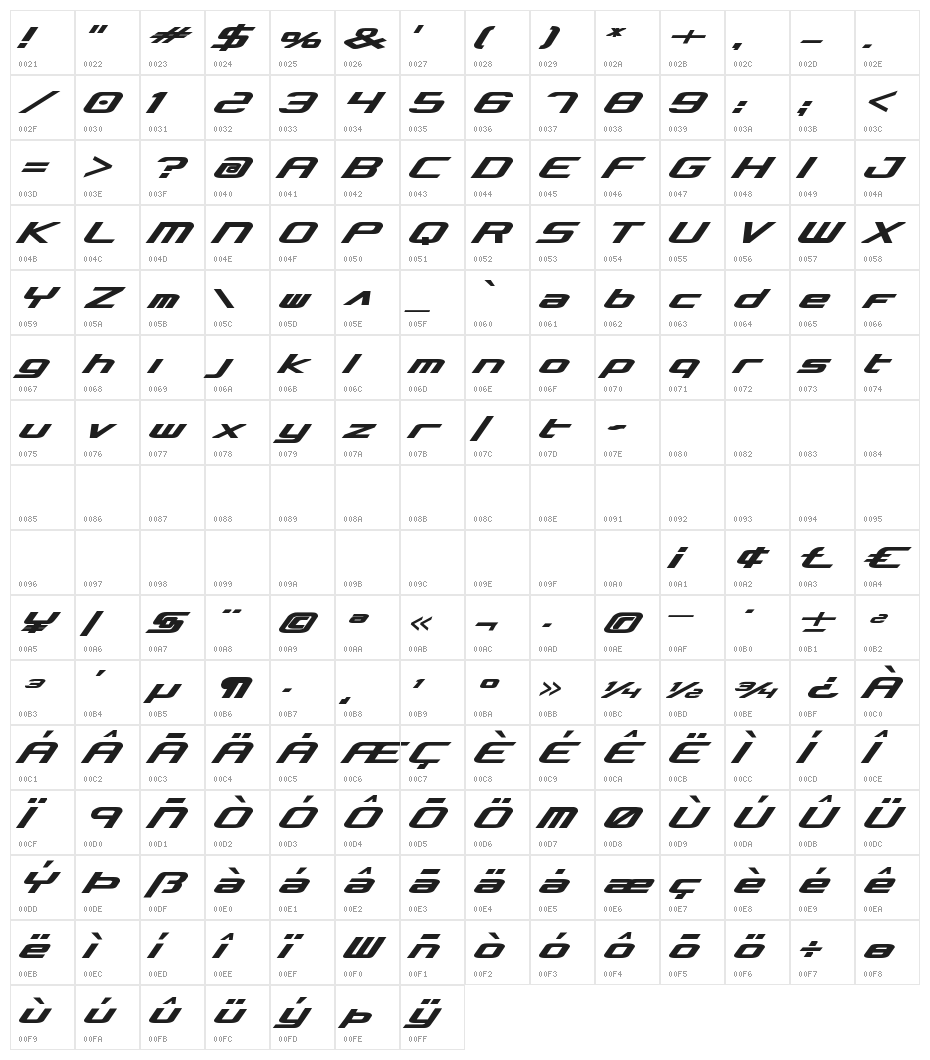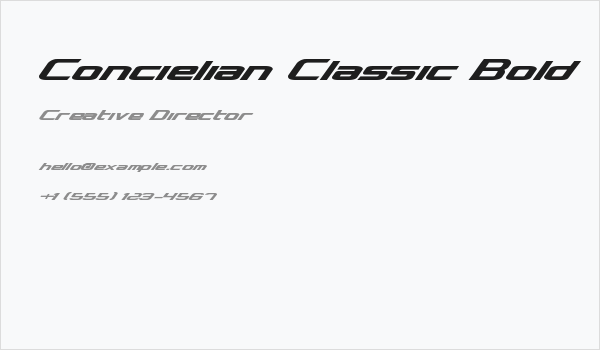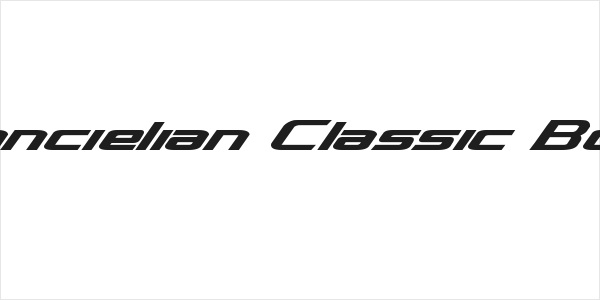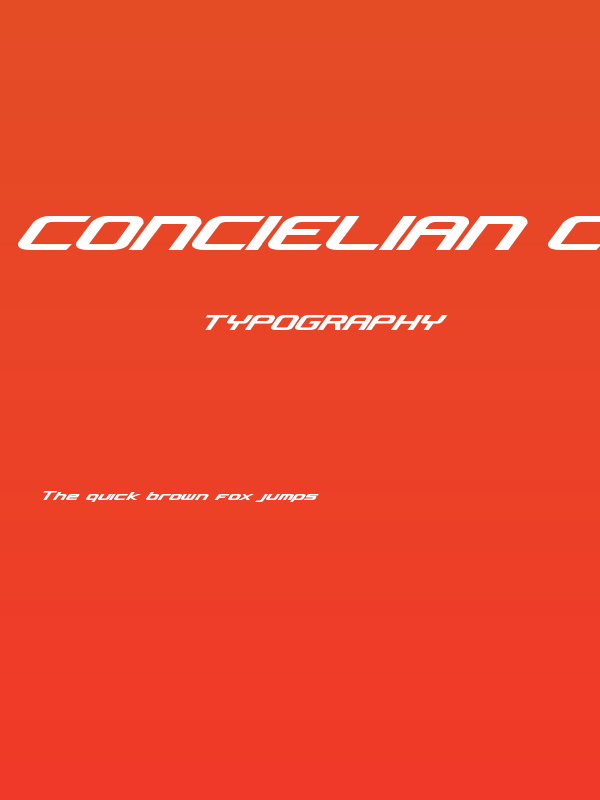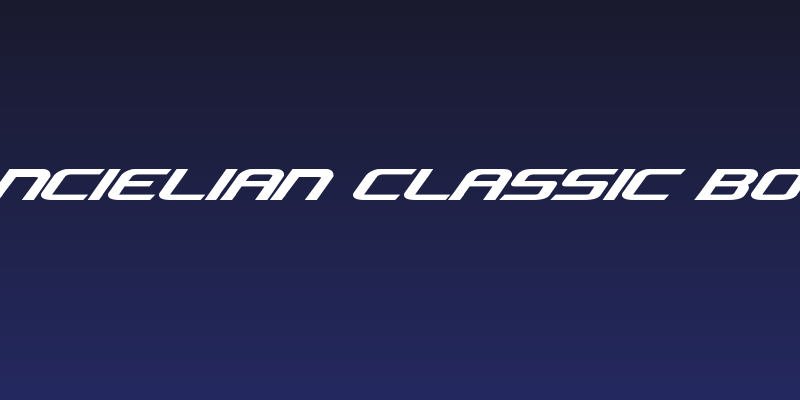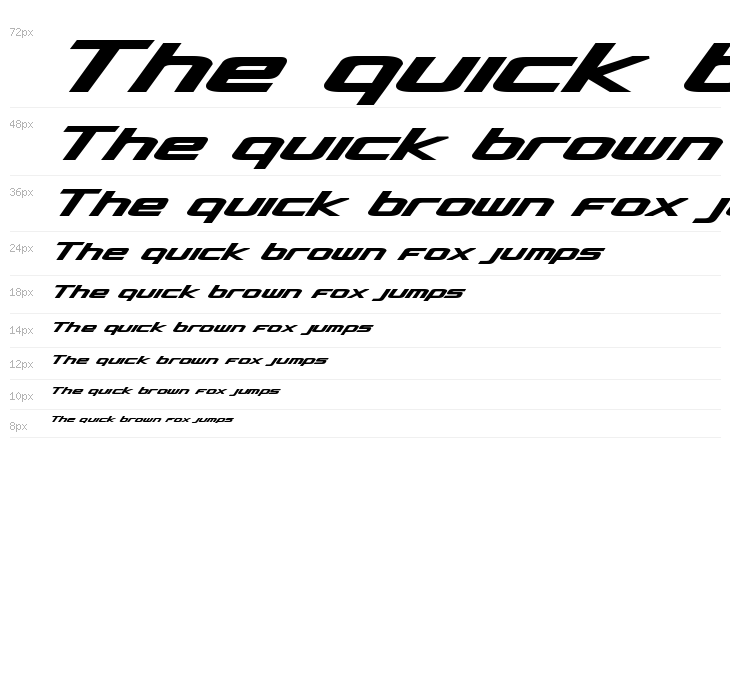
Concielian Classic Bold Font
Concielian Classic Bold Description
This font features a bold and modern design with a distinct slant, giving it a dynamic and forward-moving appearance. The characters are sleek and streamlined, with sharp angles and clean lines that contribute to its futuristic aesthetic. The uppercase and lowercase letters maintain a consistent style, while the numerals and special characters are designed to complement the overall look. The font's bold weight and italicized form make it stand out, ideal for creating eye-catching headlines and impactful designs.
Overall StyleModern, Dynamic
Proposed ProjectsIdeal for futuristic branding, sports team logos, technology-related advertisements, and dynamic poster designs.